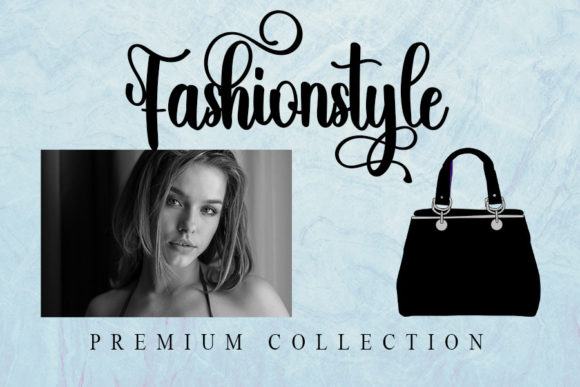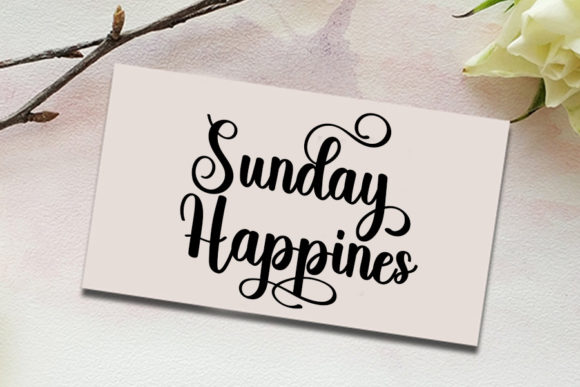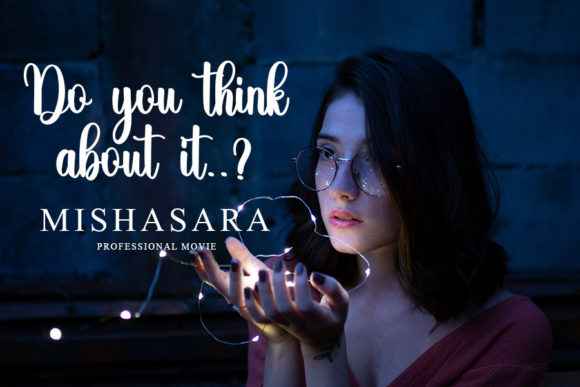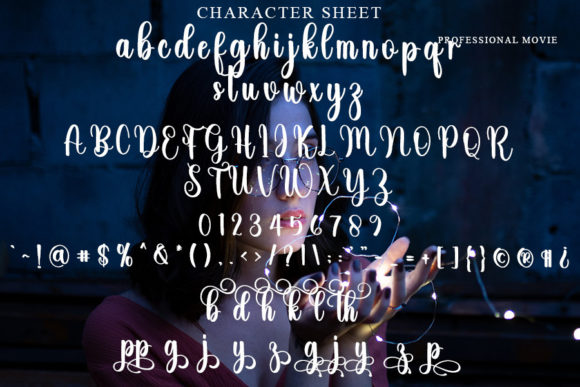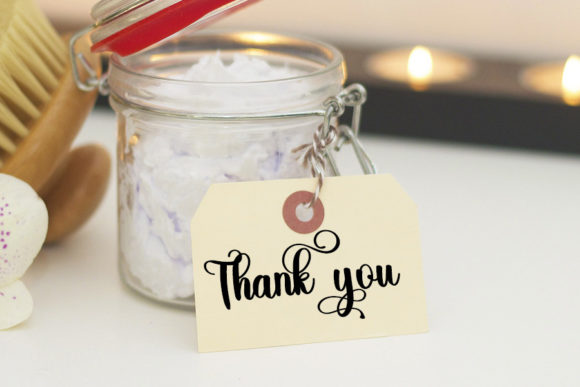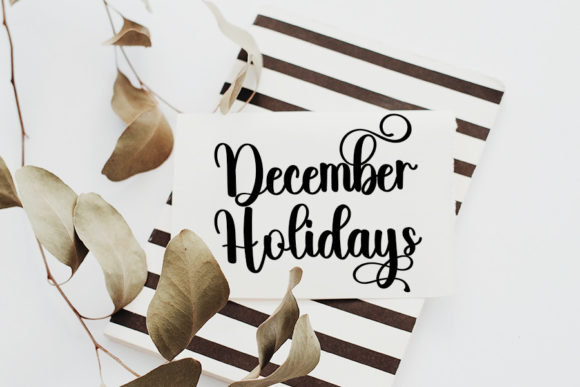
Dropping Font
About Dropping Font
DroppingĀ is a chic, refined script font that emanates sophistication and elegance. Its stylish alternates and ligatures make this font the perfect match for any project.